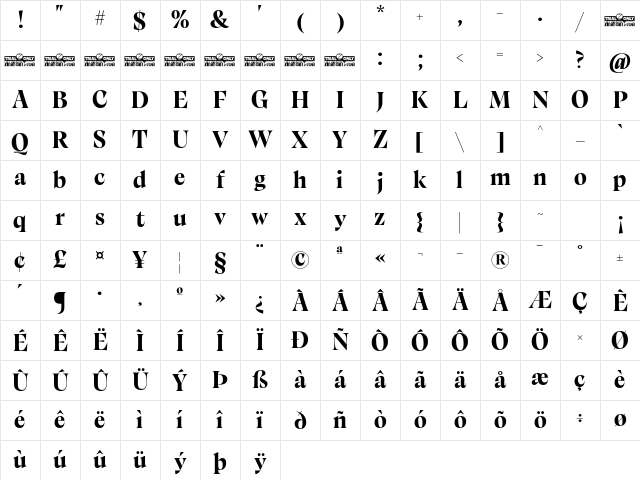
Complete Calvino Grande Trial Extrabold glyph index. Displaying only characters natively supported by Calvino Grande Trial Extrabold font.
Calvino Grande Trial is a composed and adaptable typeface that performs quietly and consistently across a wide range of design contexts. Its bold stroke weight gives it real presence on the page.